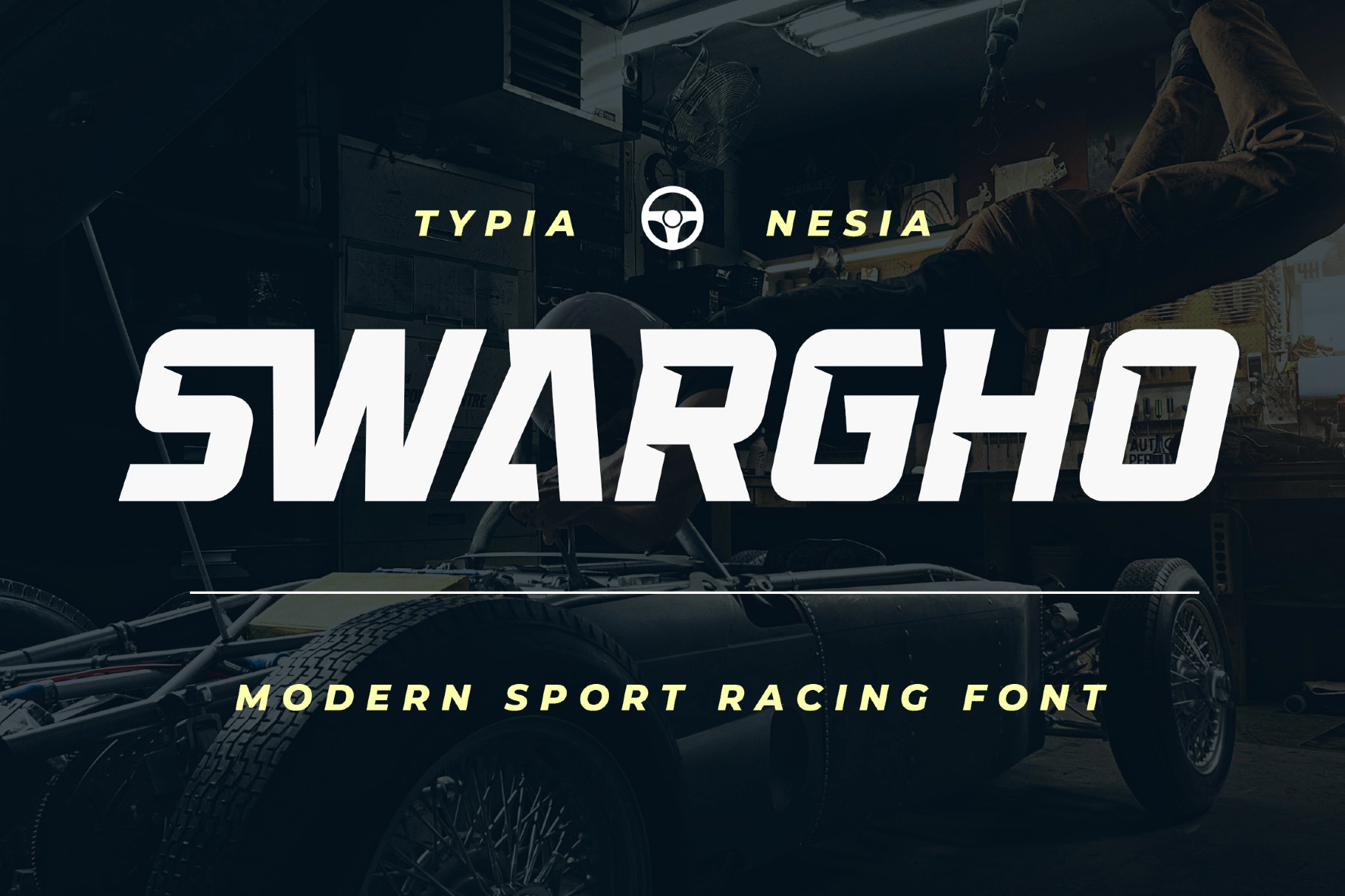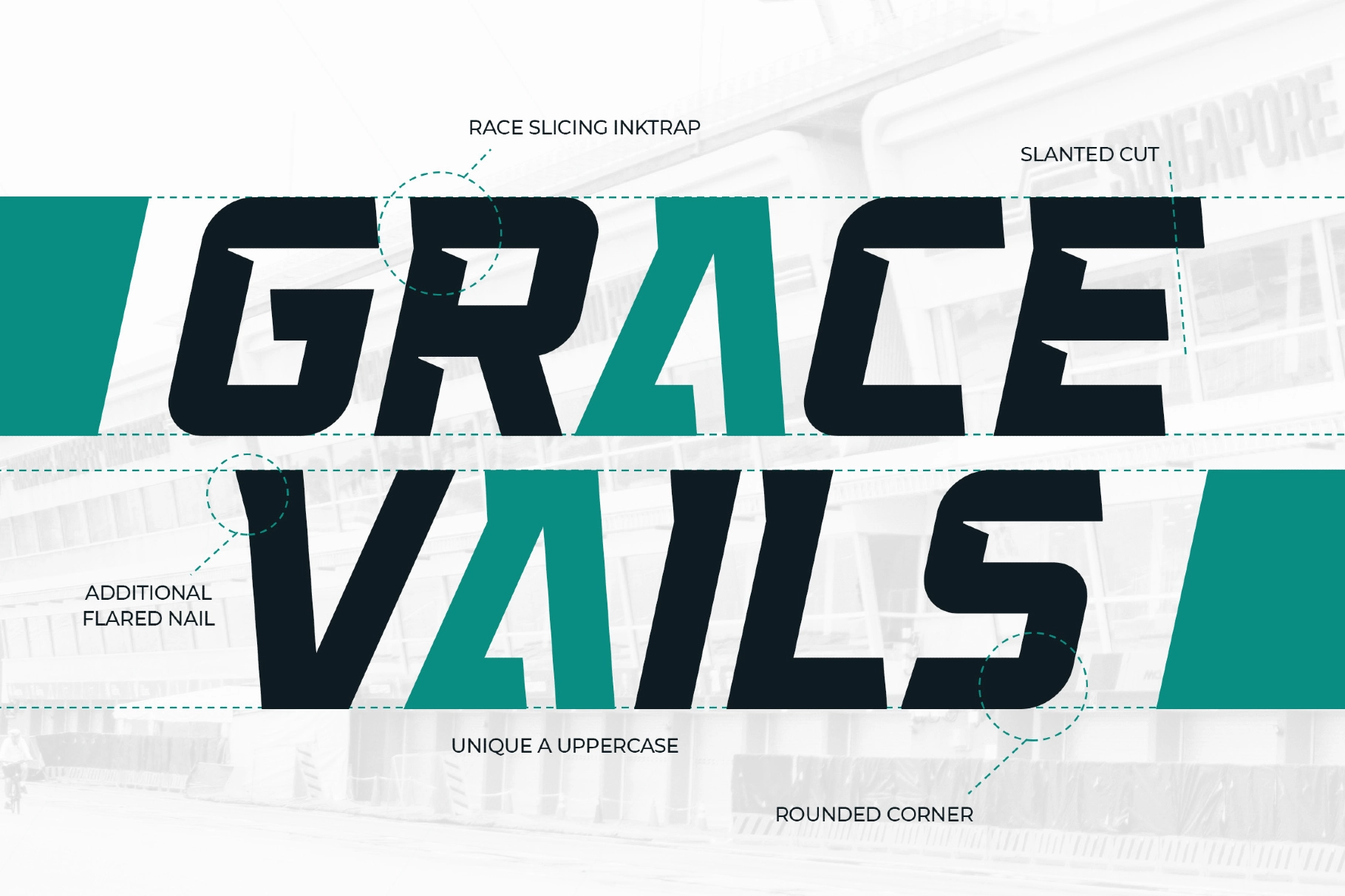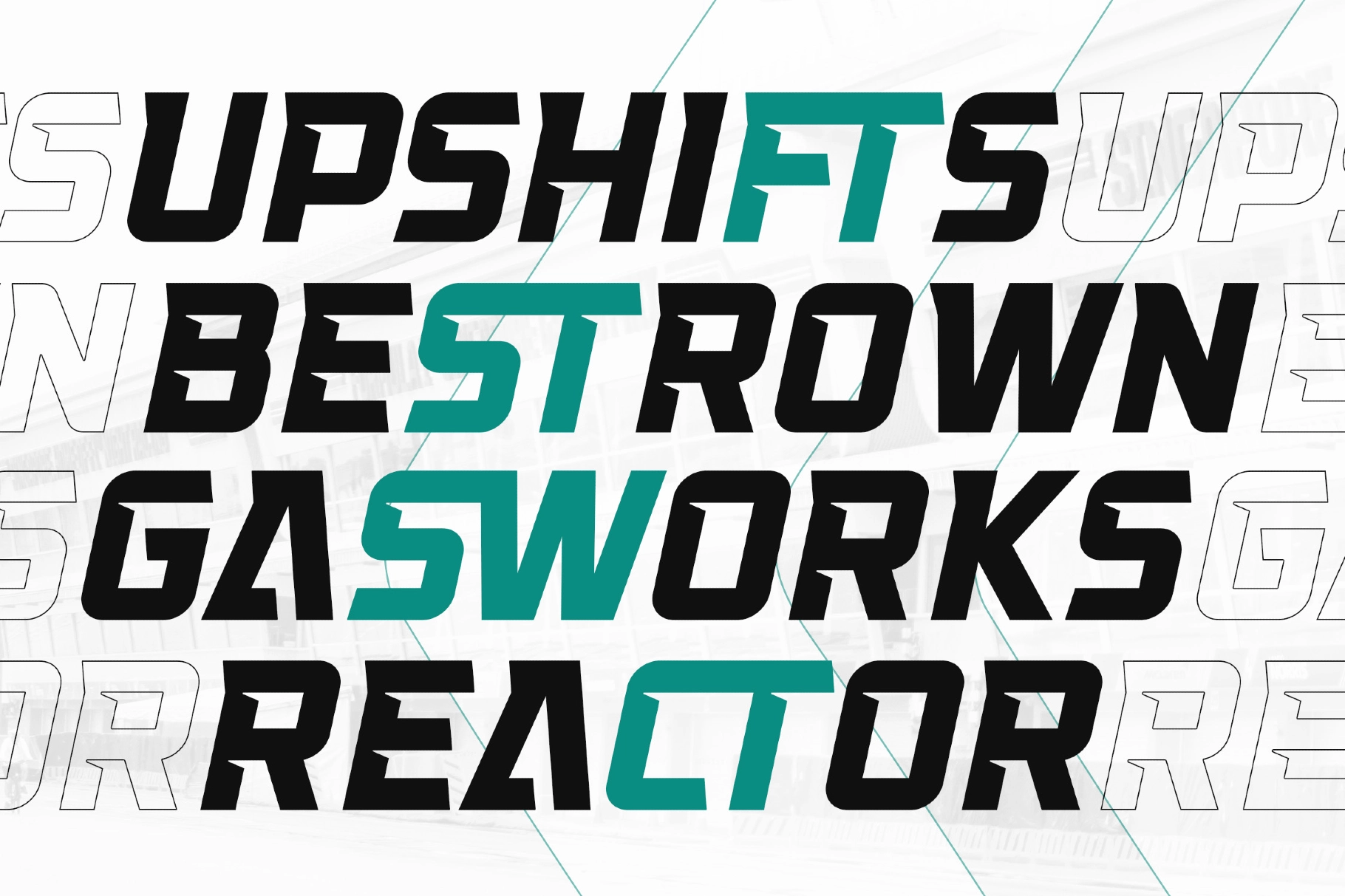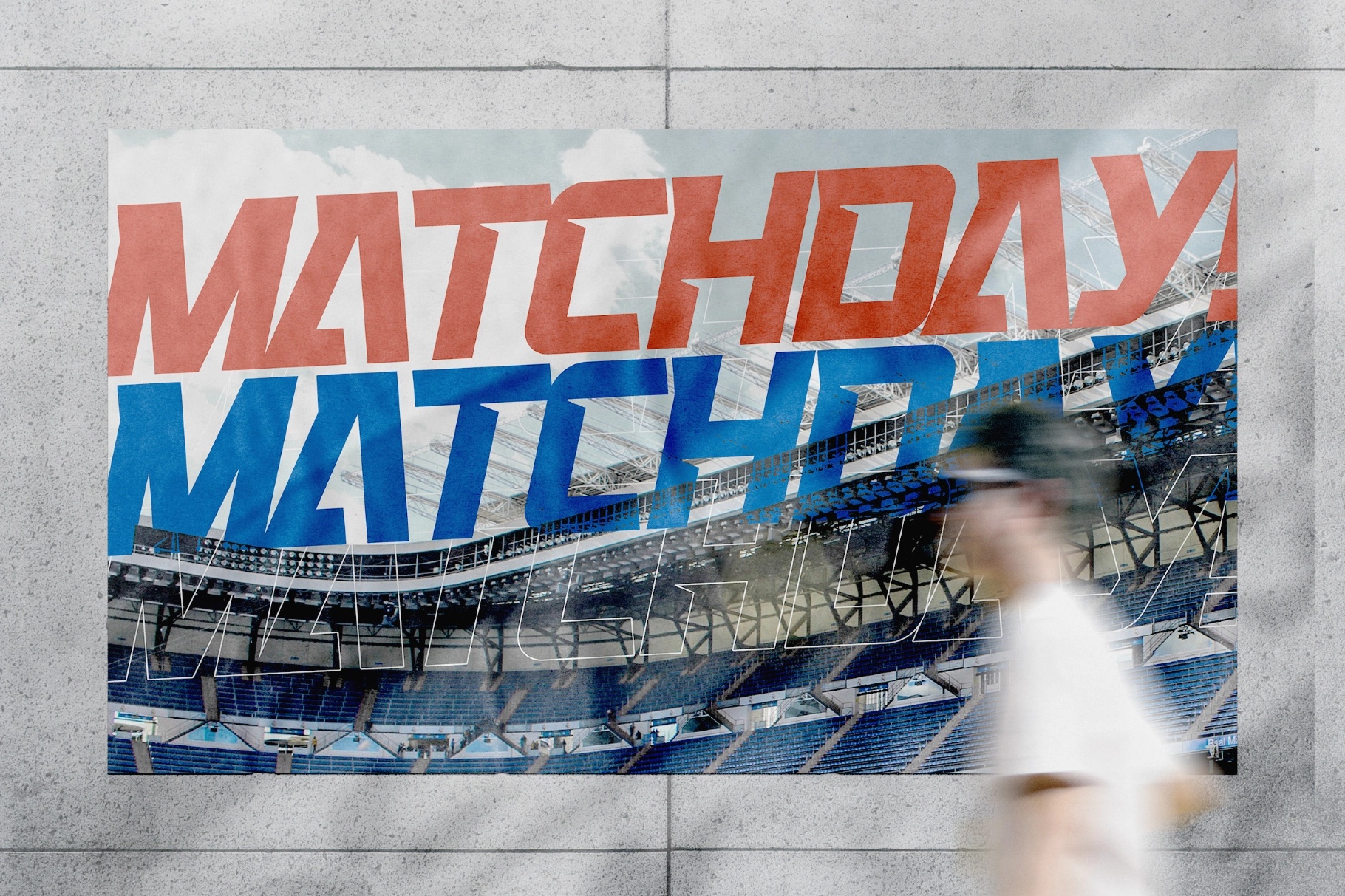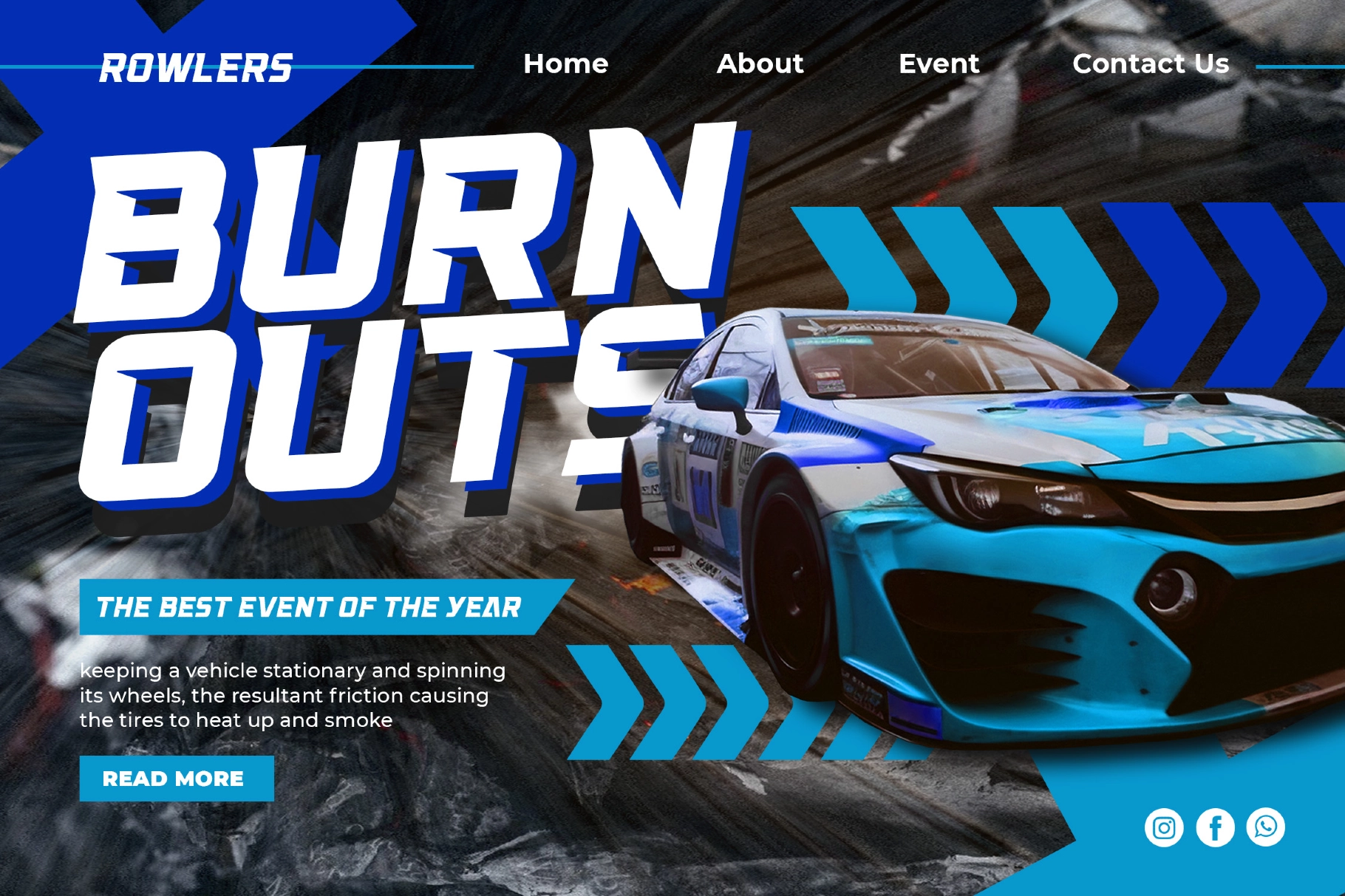
Swargho - Sport Racing Font
Swargho - Sport Racing Font is a bold and dynamic typeface crafted to capture speed, strength, and motion. Designed for high-impact visuals, it perfectly embodies the energy of motorsport and athletic performance.
Ideal for sports branding, race car graphics, team logos, apparel, posters, and digital campaigns, this font delivers sharp geometry and strong readability at any scale. Its powerful letterforms and modern styling give your designs a fearless, competitive edge.
With precision-crafted details and a sleek futuristic feel, Swargho is the ultimate choice for designers who want a fast, energetic, and professional racing aesthetic.